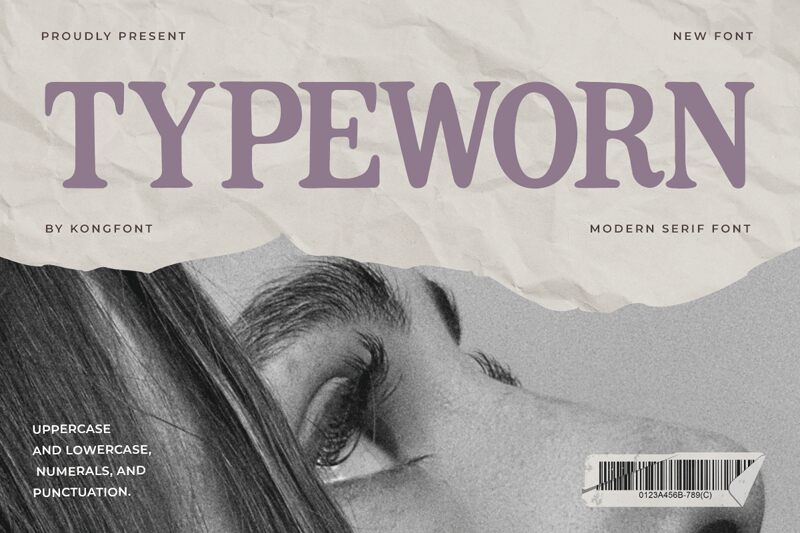
Typeworn font by Kong Font is a free serif font that beautifully balances between vintage and contemporary design elements. With rounded serifs and balanced proportions, it possesses a warm and friendly appeal along with elegance and sophistication. The font expresses beauty in understated ways making it suitable for any project appealing for a touch of formality or rigorous aesthetic.
The font can be used professionally in designing book and magazine covers, headline typography, website titles, logotypes, and wordmark. Typeworn is still useful on the arts side of typography in artistic projects, apparel design, or personal branding.